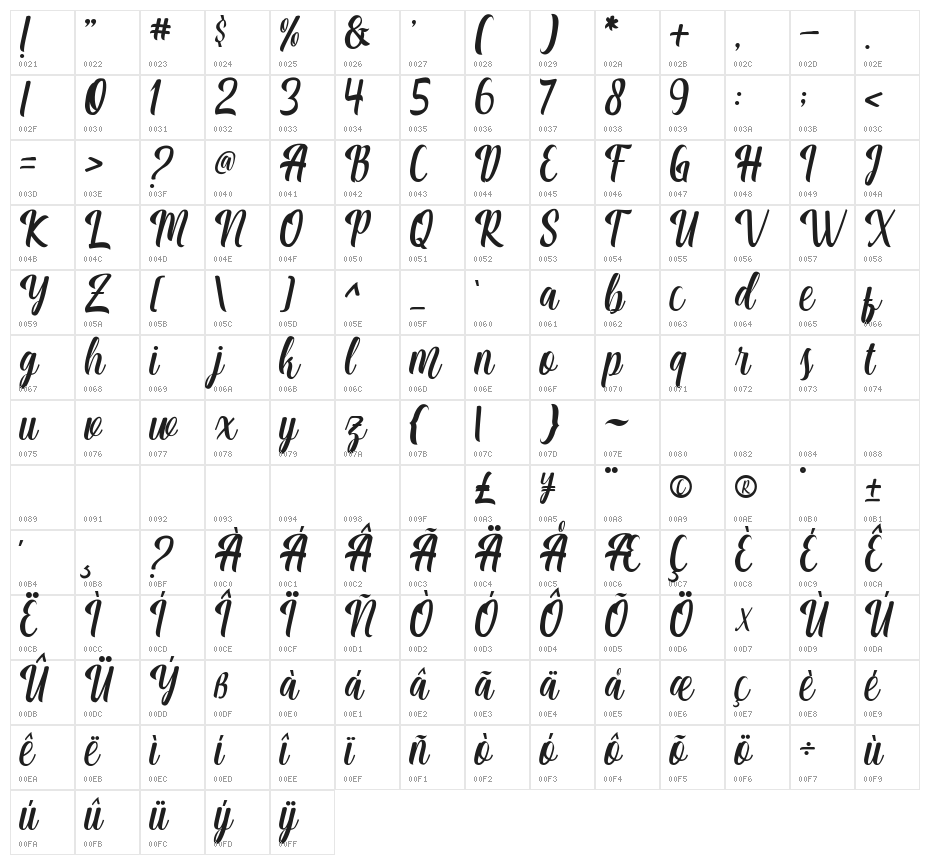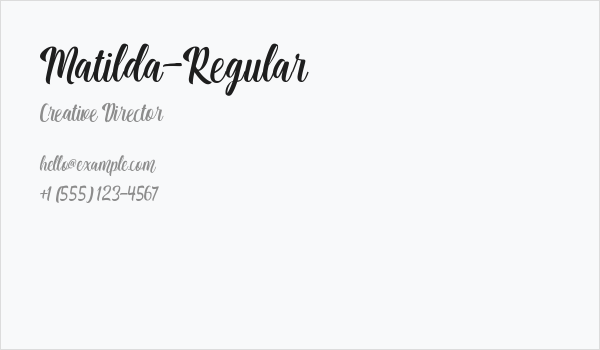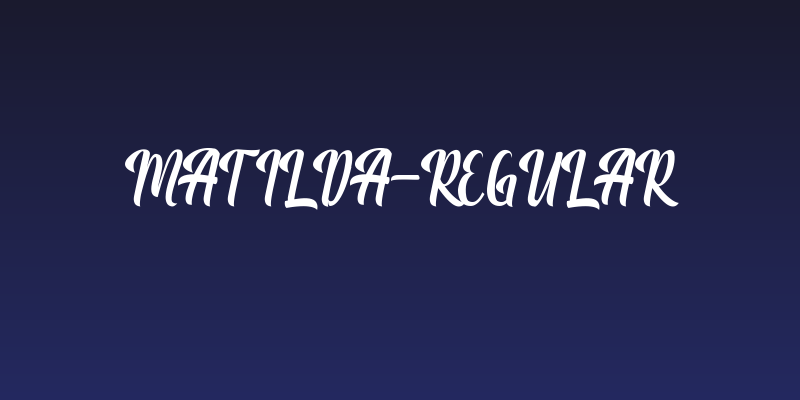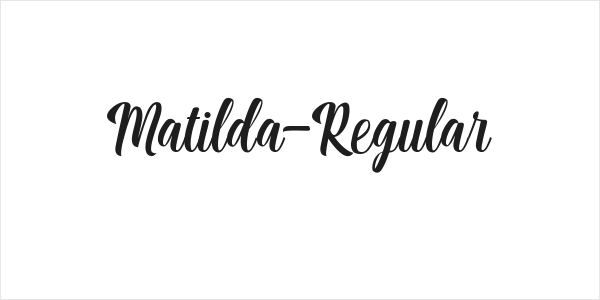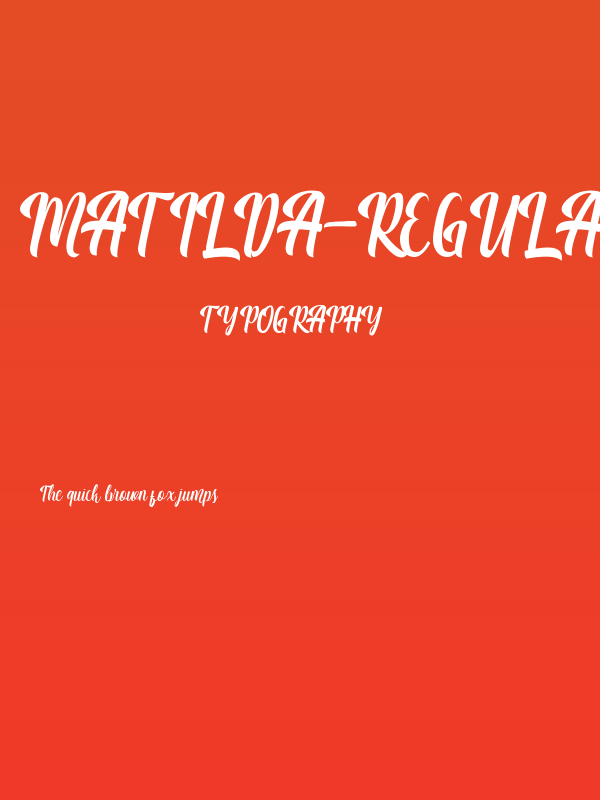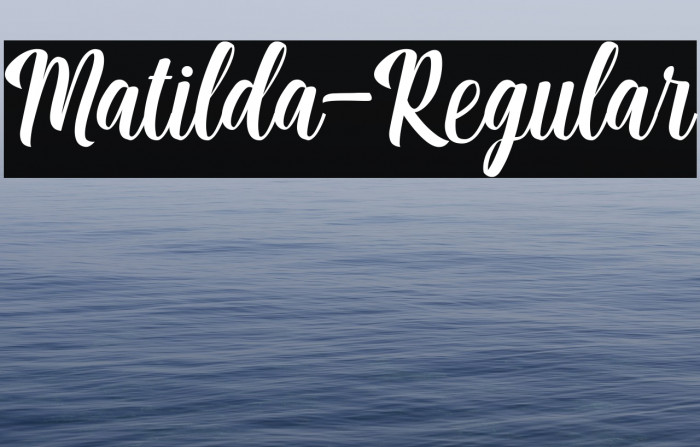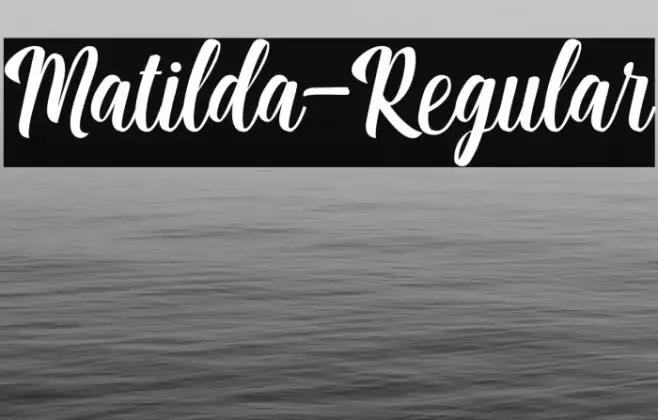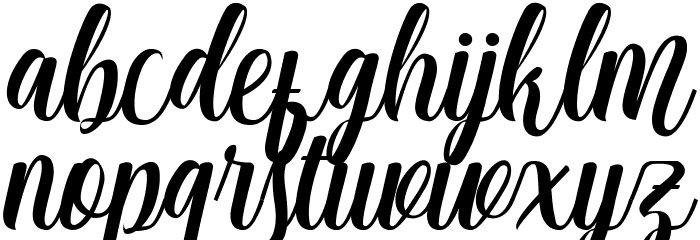
Matilda-Regular Font
Matilda-Regular Description
This font features a dynamic and flowing script style, characterized by its elegant and smooth curves. The uppercase letters are bold and slightly slanted, giving a sense of movement and fluidity. The lowercase letters maintain a consistent style, with some characters featuring distinctive loops and swashes that enhance its decorative appeal. The numerals are well-integrated into the script style, maintaining the same fluidity and elegance. Special characters are designed to complement the overall aesthetic, making this font versatile for various uses. Its bold presence and artistic flair make it suitable for projects that require a touch of sophistication and creativity.